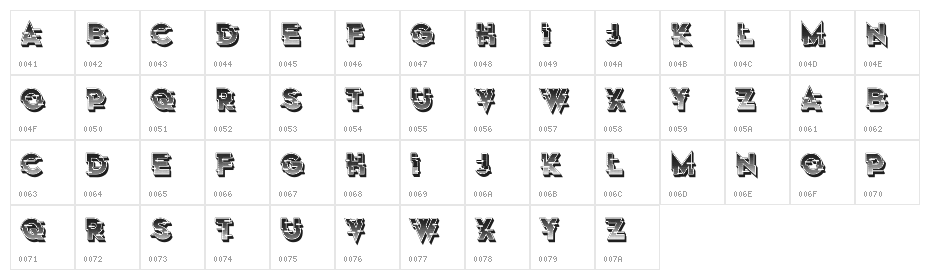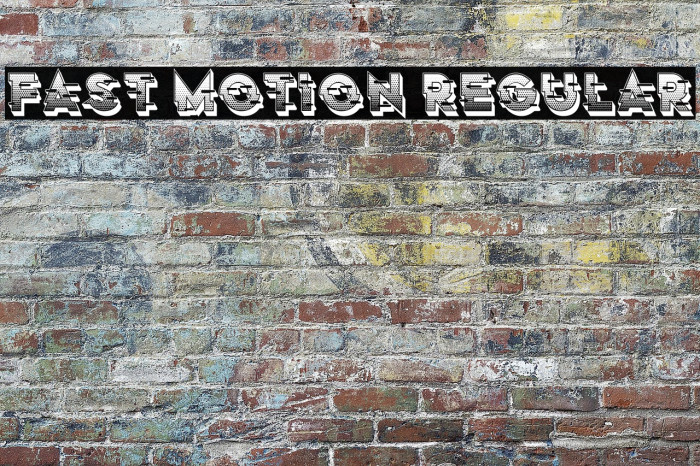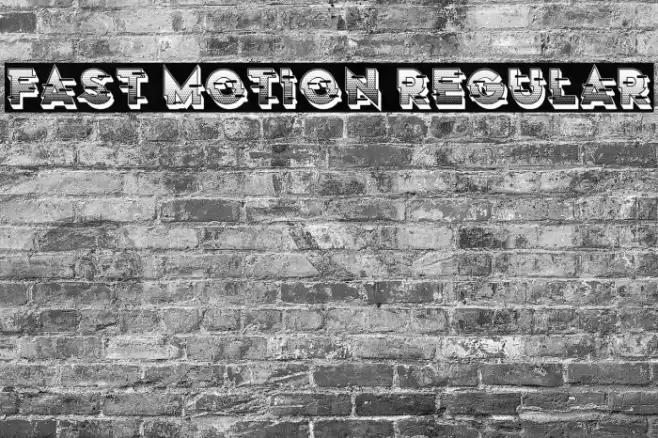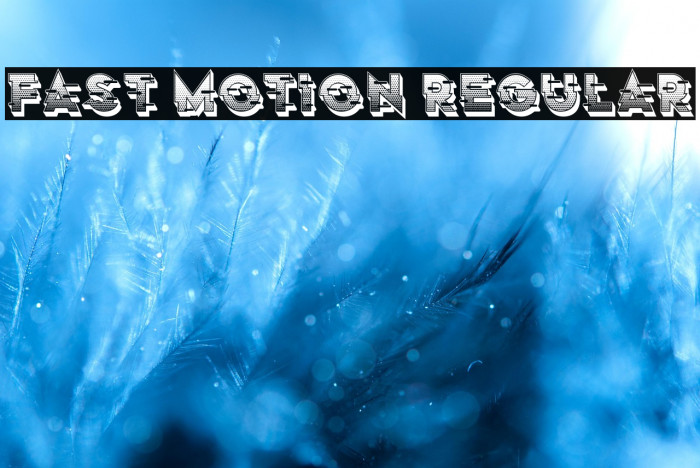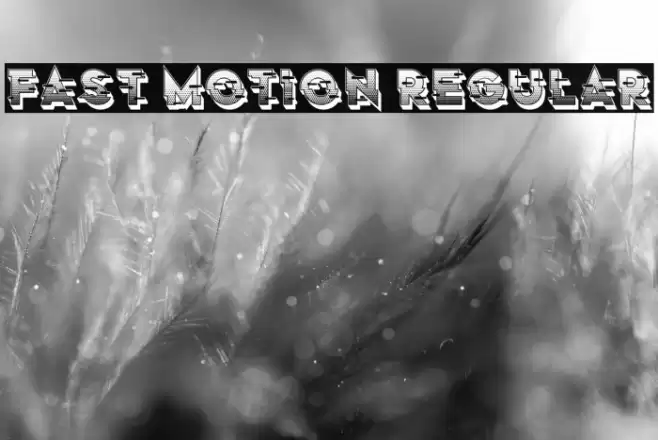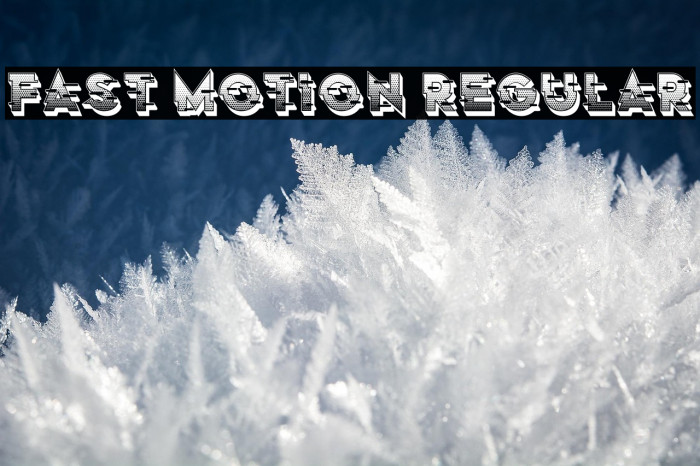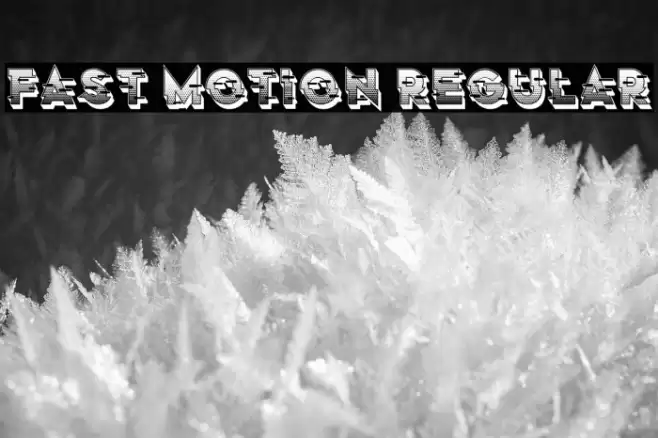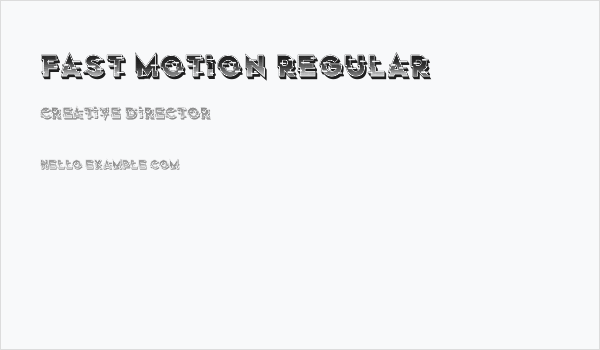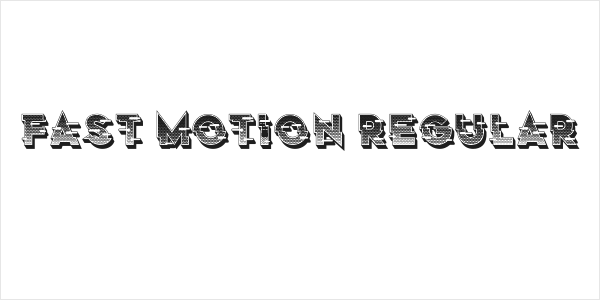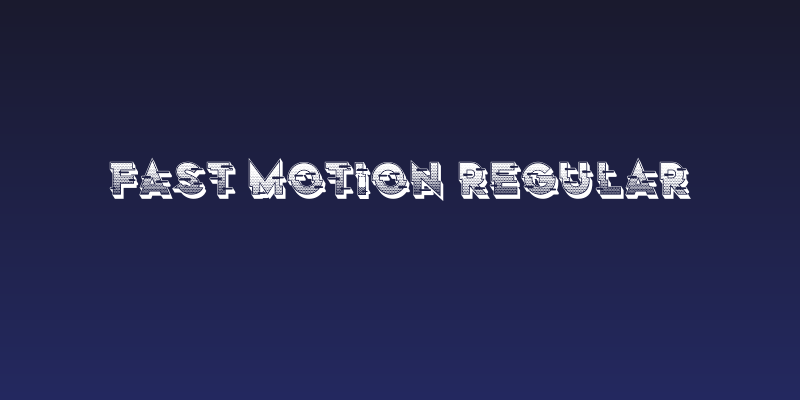
Fast Motion Regular Font
Fast Motion Regular Description
This font features a bold, dynamic design with a three-dimensional effect that gives each character a sense of depth and motion. The letters are constructed with a combination of solid and patterned fills, creating a striking visual contrast. The geometric shapes and angular lines contribute to its modern and edgy appearance. The font is highly decorative, making it ideal for attention-grabbing headlines and creative projects. Its unique style is reminiscent of retro-futuristic aesthetics, blending vintage elements with a contemporary twist.
| Overall Style | Retro-Futuristic |
| Proposed Projects | Ideal for posters, album covers, video game titles, and any project seeking a bold, eye-catching typeface. |